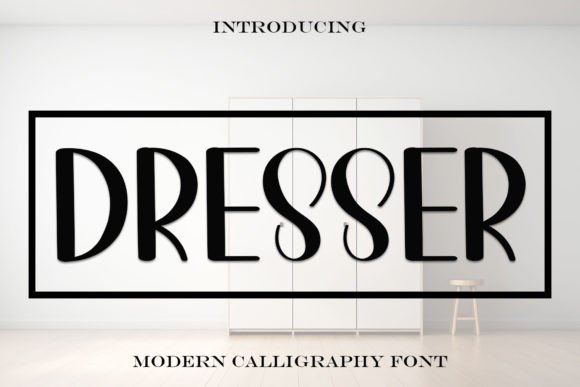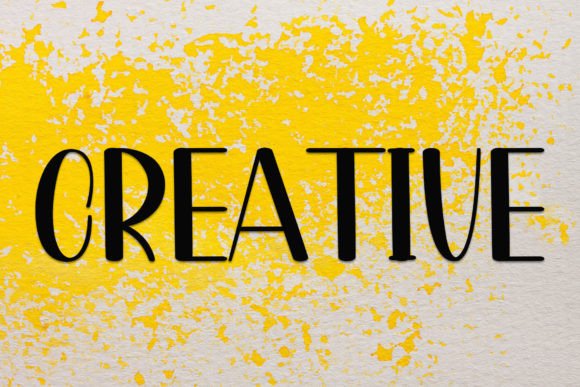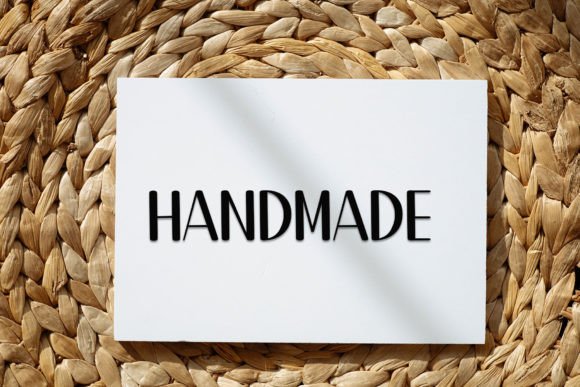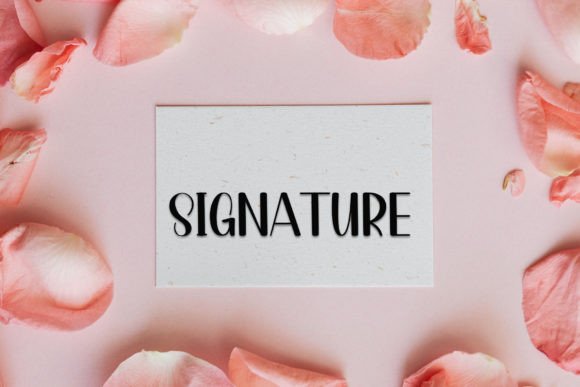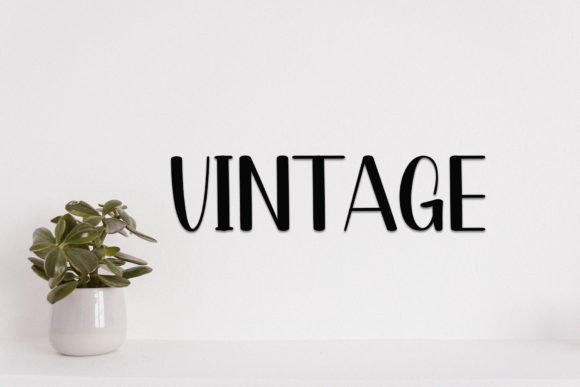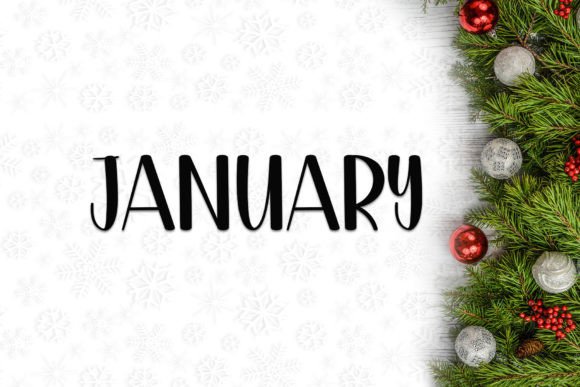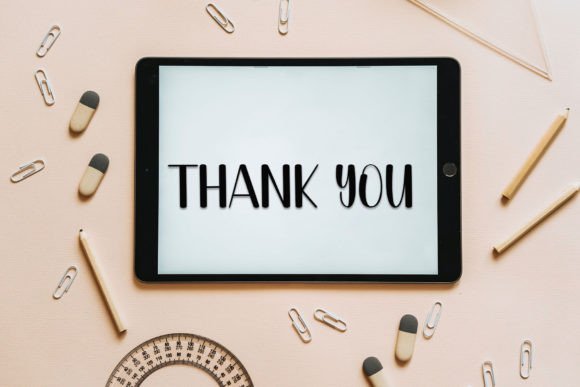
Unleashing the Beauty of Your Design: Introducing Dresser Font
Have you ever sat at your desk, staring at a blank canvas, waiting for that spark of inspiration to strike? The blank page can be intimidating, but it’s in these moments that we discover our true creative potential. For designers, the right tools can make all the difference in bringing our ideas to life.
Enter the Dresser Font, a stylish handwritten font that’s designed to elevate your projects to new heights. With its contemporary vibe and perfect shapes, this font is inspired by timeless classic calligraphy. Whether you’re working on a logo, a brochure, or a website, the Dresser Font is the perfect addition to your design arsenal.
What sets the Dresser Font apart is its unique balance of style and versatility. Its slightly italic style gives your designs a touch of sophistication, while its varied shapes keep your work looking fresh and modern. Whether you’re a seasoned designer or just starting out, the Dresser Font is a valuable addition to your toolkit.
Dresser Font Key Features
- Font Family: Dresser is a sans-serif typeface designed for digital use.
- Font Size: Offers a range of font sizes from 8pt to 72pt, with optimal readability at 10pt to 24pt.
- Resolution: Designed for use at resolutions up to 300 DPI, suitable for digital displays and printing.
- Unique Characteristics: Features a geometric and modern aesthetic, with clean lines, open forms, and a friendly tone.
- Font Style: Offers a variety of font styles, including Regular, Italic, Bold, and Bold Italic.
Dresser Font Review
Overall, I found the Dresser Font to be a decent addition to any design project, with some notable strengths and weaknesses.
- Unique and elegant feel: Dresser Font’s blend of classic and modern elements makes it perfect for projects requiring a touch of sophistication.
- Excellent legibility: This font is well-suited for body text, ensuring that your content is clear and easy to read.
- Good versatility: Dresser Font works well in various contexts, from headings to titles and even as a display font.
- Limited expressiveness: While the font has its charm, it might not be the best choice for projects requiring bold, dramatic, or highly stylized typography.
- Lack of bold weight options: The font’s bold weight could be more pronounced, making it less suitable for headings and titles that need extra emphasis.
- Not ideal for small text sizes: At smaller sizes, the font’s details can become difficult to discern, making it less readable.
While Dresser Font is not without its limitations, it remains a solid choice for projects requiring a refined, elegant aesthetic.
Getting the Most Out of Dresser Font
Alternatives to Dresser Font for Designers
Lato Font is a modern sans-serif typeface that is highly legible and suitable for a wide range of applications. It is ideal for use in body text, headings, and titles where a clean and minimalistic design is desired. Compared to Dresser Font, Lato is more versatile and has a larger character set, making it a popular choice for designers.
Montserrat Font is a geometric sans-serif typeface that is inspired by the urban landscape of Buenos Aires. It is perfect for use in titles, headings, and other display typography where a bold and modern look is required. Compared to Dresser Font, Montserrat has a more dramatic and edgy feel, making it suitable for designers who want to add a touch of sophistication to their designs.
Open Sans Font is a clean and modern sans-serif typeface that is highly legible and suitable for use in body text, headings, and titles. It is ideal for use in digital applications such as websites, apps, and e-books where a clear and readable font is required. Compared to Dresser Font, Open Sans is more neutral and has a larger character set, making it a popular choice for designers who want a font that is easy to read and versatile.
Is Dresser Font suitable for both digital and print designs?
Yes, Dresser Font is designed to be highly versatile and suitable for both digital and print designs. The font’s high-resolution design ensures that it will look crisp and clear in print, while its digital-friendly design makes it suitable for use on screens and digital devices.